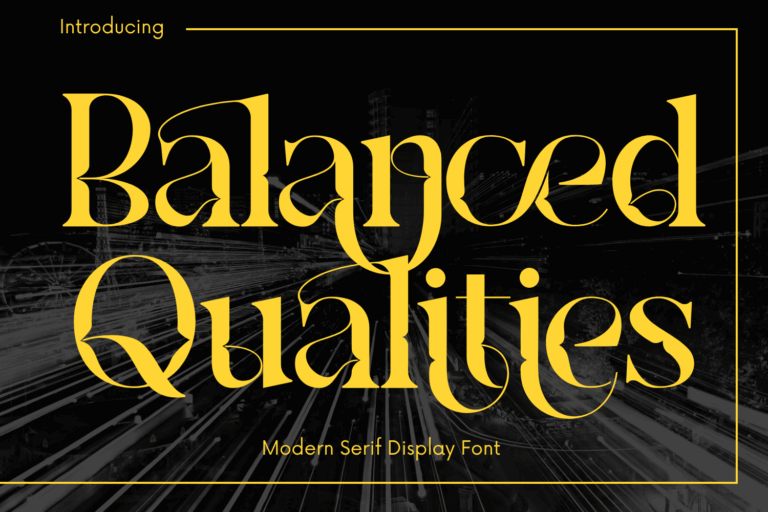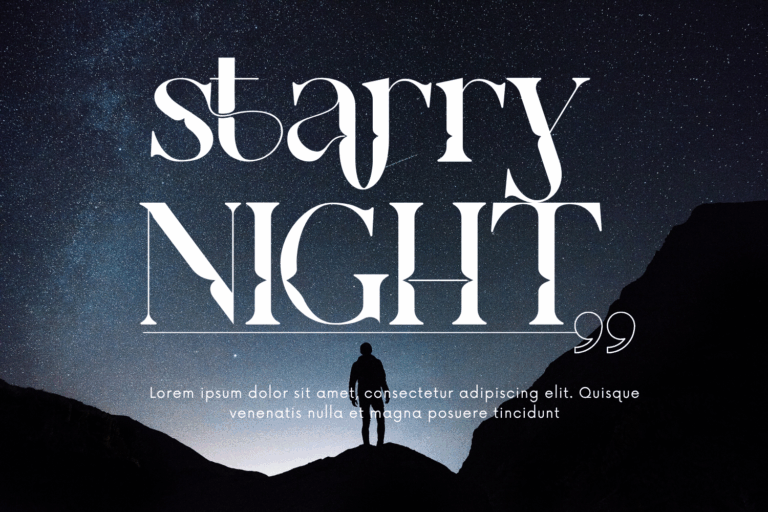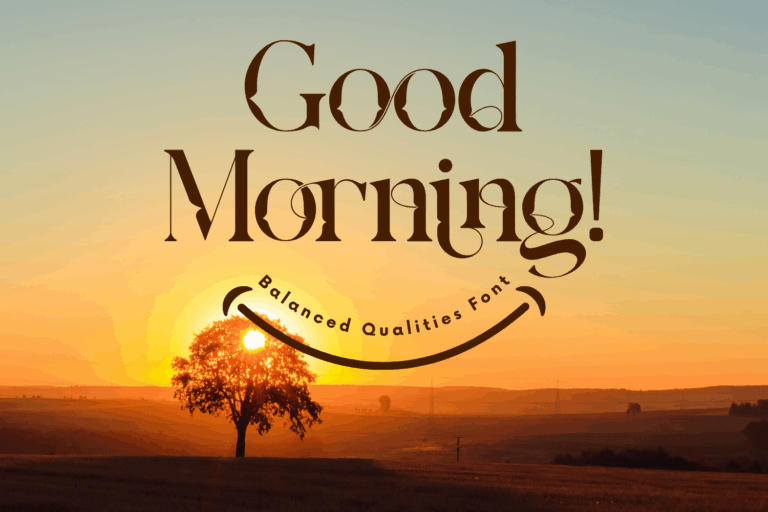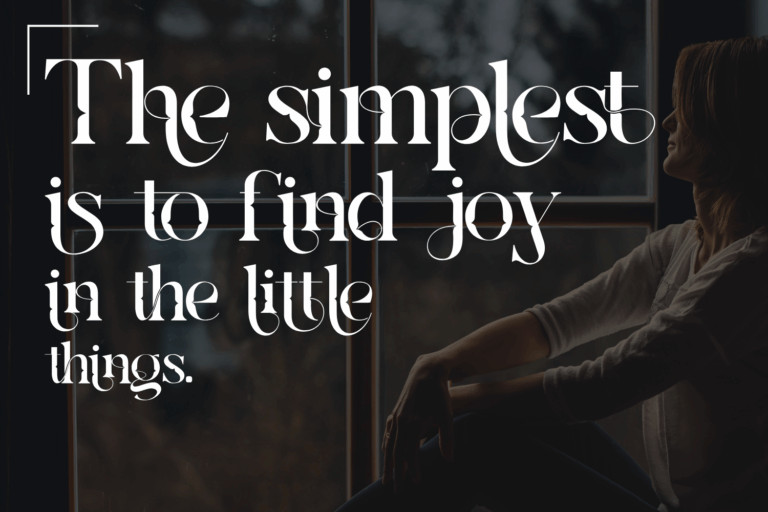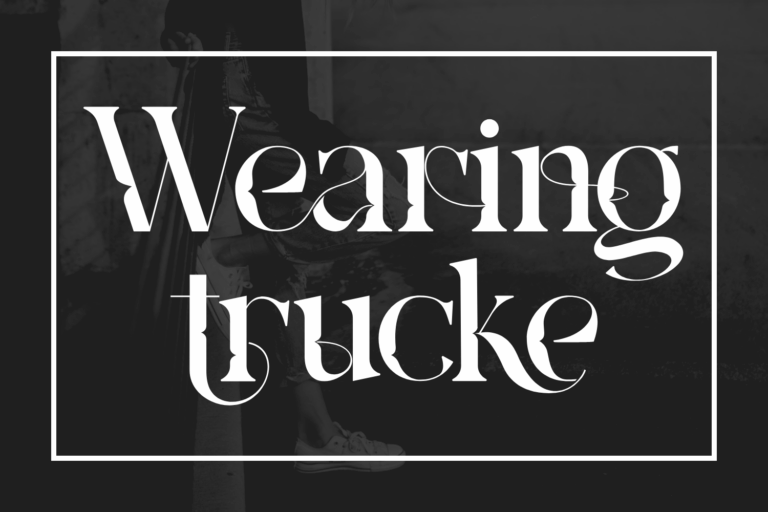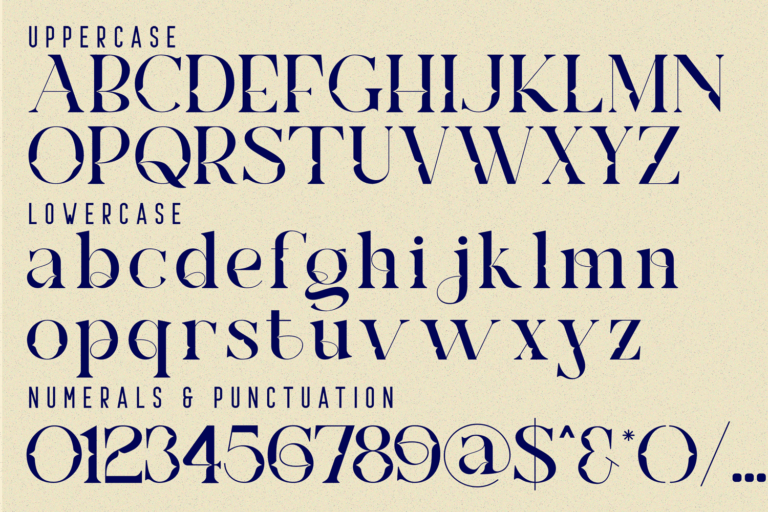
Balanced Qualities – Elegant Font is a refined high-contrast serif display font designed for elegance, sophistication, and visual drama. With its sweeping terminals, graceful ligatures, and sculptural letterforms, this font captures the perfect harmony between tradition and artistic flair. Inspired by editorial typography and luxury branding, Balanced Qualities brings a modern take to classical forms. Each glyph flows with intentional rhythm and style — ideal for headlines, fashion logos, magazines, and creative projects that call for both beauty and distinction.
Font Features:
• Uppercase & Lowercase Letters
• ~100 Special Ligatures
• Multilingual Accented Characters
• High Contrast & Dramatic Curves
ac ad al an ar as at au av be ca ce ch co ct de di ea ec ed ee el em en ep er es et fe fo fr ge ha he hi ho ie ic il in io ir is it ju ke la le li ll lo ly ma me mi nc nd ne ng no nt ns oc of om on oo op or ot ou ow pa pr ra rd re ri ro rs rt se sh si so ss st ta te th ti to tr tt um un ur ve wi wo
Balanced Qualities – Elegant Font